Start with a single design and cover multiple languages.
Dinamo
Johannes Breyer/ Fabian Harb
Type Project interviewed with the funders of Dinamo, Johannes Breyer and Fabian Harb.
1. Tell us about your company.
Dinamo is a Swiss type design practice offering retail, bespoke typefaces and consultancy with spaces in Basel and Berlin, and satellite members in several locations more.
In 2017 Dinamo was awarded the Swiss Design Award by the Swiss Federal Office of Culture and in 2018 invited to join the AGI. Current clients include Kunsthalle Zürich , SSENSE, Warp Records, Istituto Svizzero, Rimowa, Tumblr and more.
2. What is (are) the main/leading font(s) of your company?
Dinamo basically started and grew with the Favorit Family: from a single style design in the Brno Biennale catalogue to Italics for the German Pavilion at the Venice Biennale to Underline styles for Tumblr, on to Mono, to Greek, Cyrillic, Hangul and currently Arabic.
From 2016 on, Dinamo started to publish fonts by external designers as well and since then published works by Felix Salut, Seb McLauchlan, Larissa Kasper & Rosario Florio, Alessio D’Ellena.
Via Type Project, Dinamo’s Monument Grotesk, Whyte, and Laica will be available with Japanese FitFont.
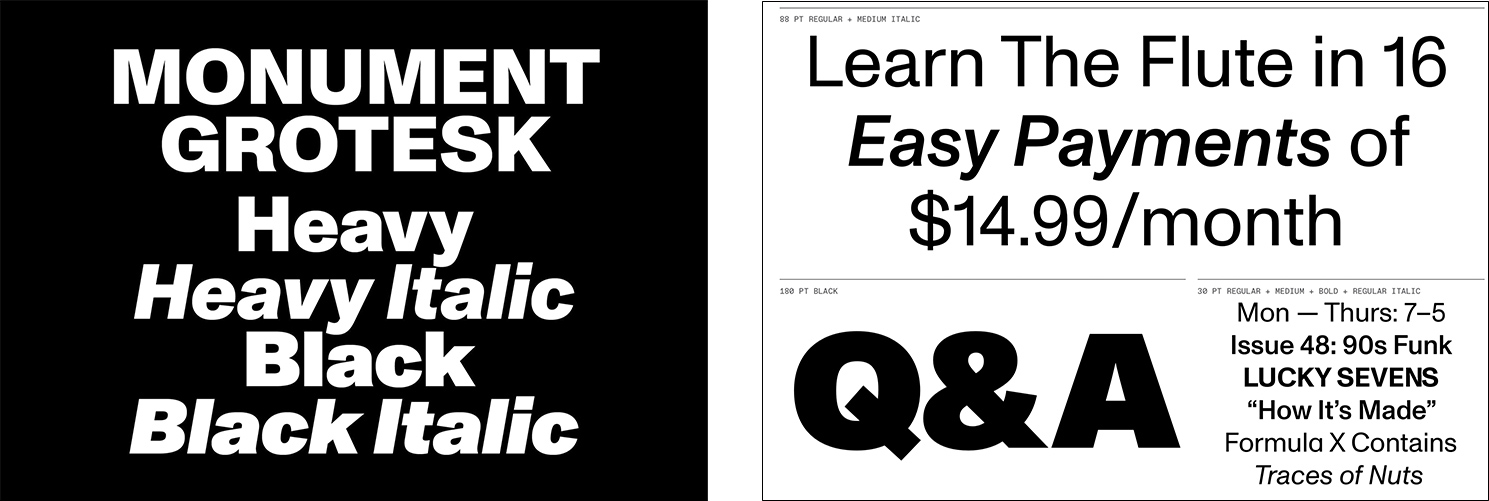
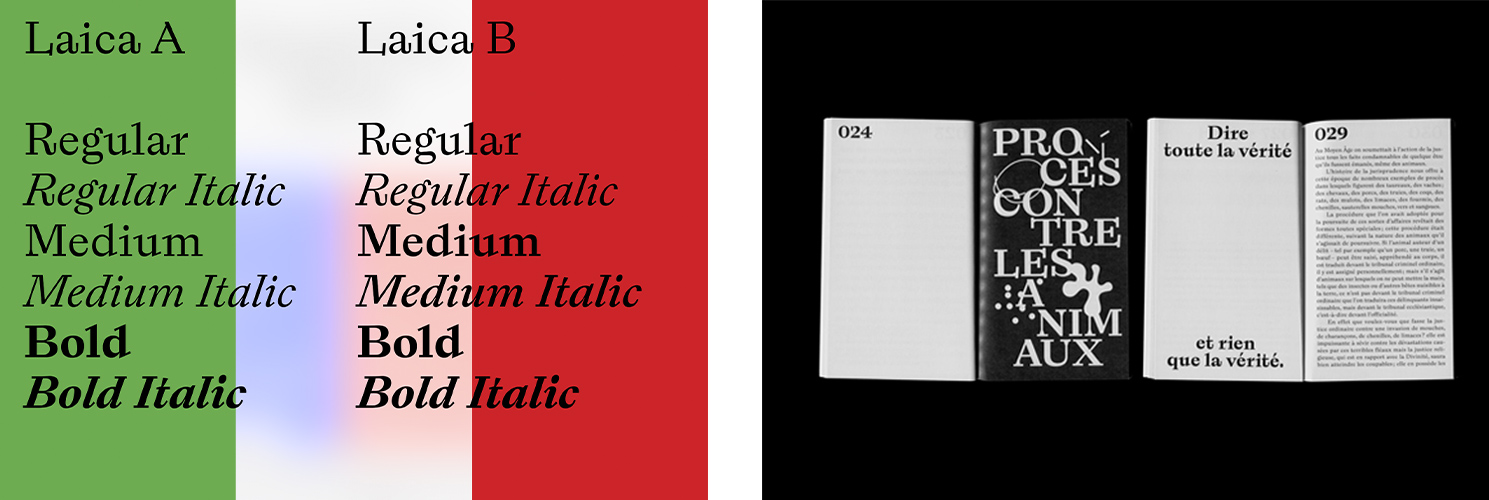
3. Is there any newly released typeface from your company?
By the time this interview is published, some of Dinamo’s upcoming designs might have been published already. Among them will be Diatype & Diatype Mono, Marfa & Marfa Mono, Maxi, Synt, Alte Walter & Neue Walter, Oracle & Oracle Trimono, Common Sans and Gravity.
4. What is the ratio of your work for original design fonts and custom order fonts? Please tell us about custom work.
Dinamo is equally active in both fields and current projects include a new typeface for the German luggage manufacturer Rimowa under the direction of London’s Commission studio, temporarily exclusive Styles of Monument Grotesk for DAZED magazine, some still secret typefaces for one of the largest global sports organization, a corporate typeface for the San Francisco Symphony under the direction of COLLINS, as well as a collaboration with Native Instruments.
5. Can you tell us about your customer(s)? Who are they and how do they use the font?
Dinamo customers range from arts to culture to commerce and retail typefaces as well as custom typefaces have been created for small and visionary design studios as well as for some of the biggest and most innovative corporations in the world.
6. What kind of device(s) your customer has (have) embedded the font(s) with?
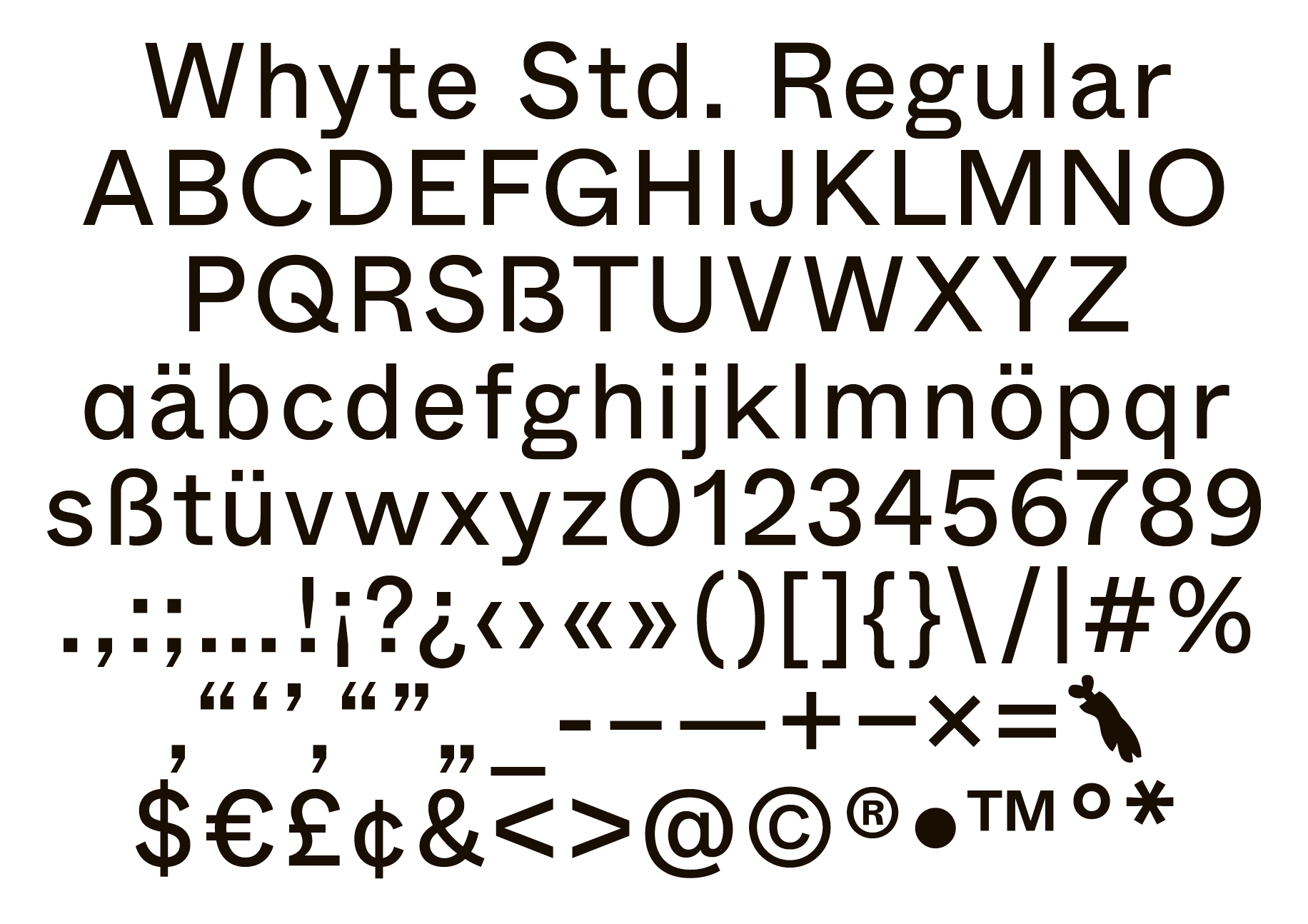
8. Can you tell us about what you are working on right now and what you will like to work on in the future?
Unfortunately, this is secret.
9. What do you think about your company positioning, for its raison d’etre in the font design/development industry?
It’s up to everyone individually to judge for themselves. We are interested in many different things that go out and beyond of type but it’s up to everyone individually to judge for themselves!
10. What is your opinion about open source font(s) and free font(s)?
There is undoubtedly need for them and if the intentions are right, results can be great.
11. What do you think about Type Project and do you have any expectation for us?
Dinamo deeply believes in collaborations and is happy to have found a genuinely engaged, extremely caring and highly competent partner in Type Project. Their impressive FitFont is making it more simple for both Japanese and Western designers and brands to extend their typographic voice multilingual. Dinamo is excited to join forces in this cross-cultural collaboration and looking forward to seeing how their designs will come together and extend potential with its FitFont companion.